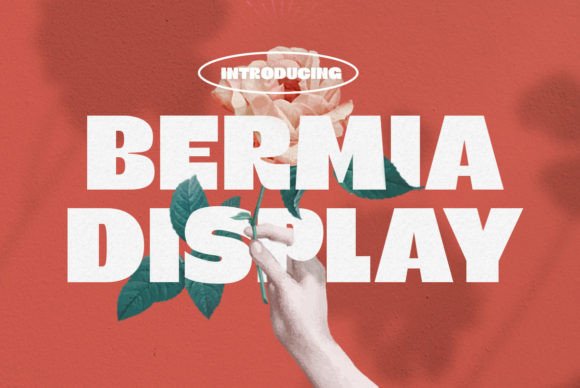
The Bermia Font: A Bold and Elegant Display Font for Creative Projects
I’ll never forget the time I was working on a branding project for a luxury fashion client. I had spent hours crafting the perfect logo design, but the font I was using just wasn’t cutting it. The text looked dull and uninspired, and I knew I needed to find something that would elevate the entire design. That’s when I stumbled upon the Bermia font. ✨
As soon as I started using Bermia, I knew I had found the perfect fit. Its bold and elegant design instantly added a touch of sophistication to my logo, and I was able to deliver a final product that exceeded my client’s expectations. But Bermia’s uses don’t stop at logos – it’s also perfect for posters, advertisements, and any other project where you want to make a statement.
An Honest Review of Bermia Font
What I Love About Bermia Font
- ✨ Bold and elegant design: Bermia’s unique blend of bold and elegant features makes it perfect for creating eye-catching text that still looks refined and sophisticated.
- ✅ Excellent readability: Despite its bold design, Bermia ensures that messages conveyed through text remain easy to read and understand, even at smaller font sizes.
- ✅ Versatile: Bermia is suitable for a wide range of creative projects, from branding and logos to posters and advertisements.
While Bermia is an excellent font, there are a few things to keep in mind. ⚠️ Some users have noted that the font can be a bit overpowering when used in large blocks of text. Additionally, Bermia’s bold design may not be the best fit for projects that require a more delicate or subtle look. 🤔
- Experiment with Bermia’s OpenType features, such as glyphs and stylistic alternates, to add more creativity to your design.
The Backstory Behind Bermia Font
Bermia font was designed by a team of typographers who wanted to create a bold and elegant display font that would add a touch of sophistication to any design. Inspired by classic serif fonts, Bermia’s designers aimed to create a modern and versatile font that would be perfect for a wide range of creative projects.
| What type of projects is Bermia font best suited for? | Bermia font is perfect for branding, logos, posters, advertisements, and any other project where you want to make a statement with bold and elegant text. |
| Is Bermia font suitable for body text? | While Bermia font can be used for body text, it’s primarily designed as a display font. It’s best used for headlines and titles where you want to add emphasis and create a bold statement. |
| Is Bermia font available in different weights and styles? | Yes, Bermia font comes in a range of weights and styles, including bold, regular, and italic. Be sure to experiment with different weights and styles to find the one that works best for your project. |